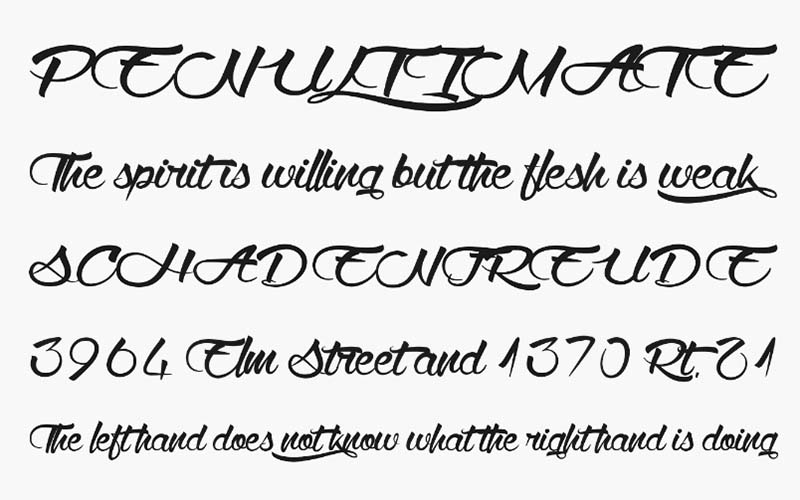
Wolf In The City Font is a script, cursive, and calligraphy typeface that has a unique and beautiful style structure. This cursive typeface was designed and launched by Maelle Keita for the first time.
This free font can be found in two unique styles and consists of 146 beautiful characters. So, this is the best way to make a great design. And with that, you can create great things.
Due to its unique texture, you can create special quotes, and invitation cards, helps to create logos designs, product designs, special event cards, printing on t-shirts, posters, storybook covers, and much more.
The designer has created the texture with a thick brush and added extra curves to make it cooler and expert. Another thing that is being added by the designer is the swashes which are available on anchor fonts.
Wolf In The City Font
| Font Name: | Wolf In The City Font |
| Style: | Script, Calligraphic, Typeface |
| Font Designer: | Maelle Keita |
This swish has added extra creativity and they can help connect the lines. That’s why you will see a better collection of letters. And they look amazing with each other’s help.